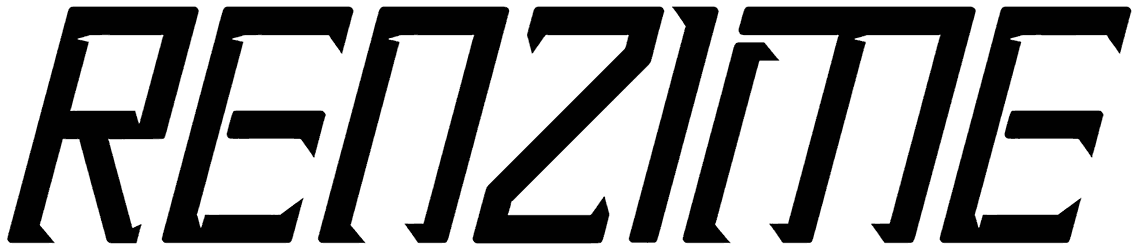
Renzime Font
If you love new typefaces and need a modern font to make your mental images come true, be sure to check out Renzime. This racing font has a geometric design with sharp edges that gives it a digital look.
The cut corners and distinctive style of this font, which skillfully uses proportion, form, and spacing, look great and clean on posters, printed designs, postcards, and even websites.